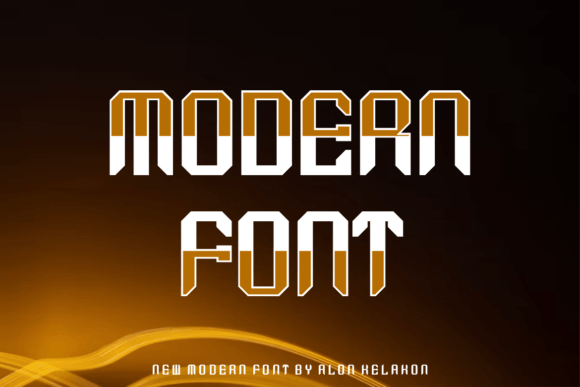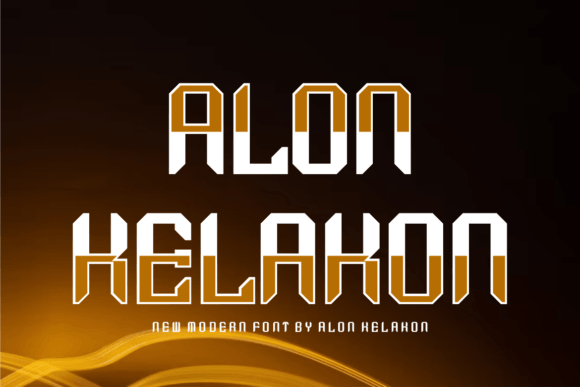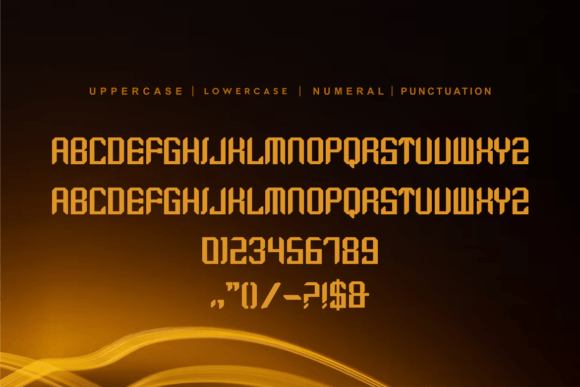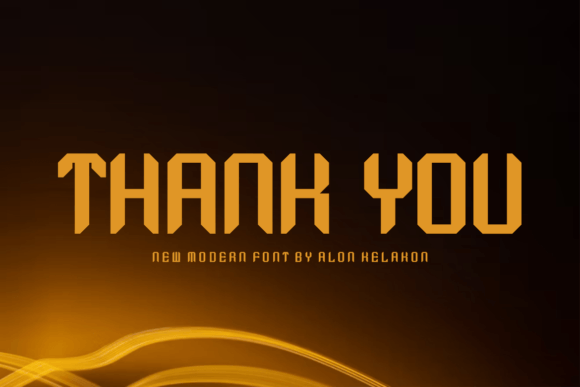
Introduction to Garobes Font
Garobes Font is unique.
Ready to use for your design like labeling, clothing, movie screen, poster, movie title, gigs, album covers, logos, and much more .
Key Features of Garobes Font
Why Choose Garobes Font?
Garobes Font offers exceptional quality and versatility, making it a valuable addition to your design toolkit. Whether you’re creating for personal projects or commercial use, Garobes Font delivers professional results.